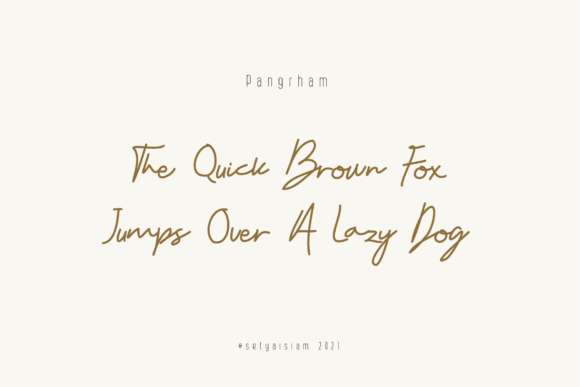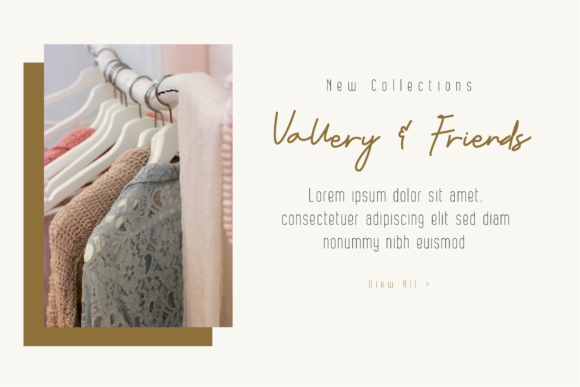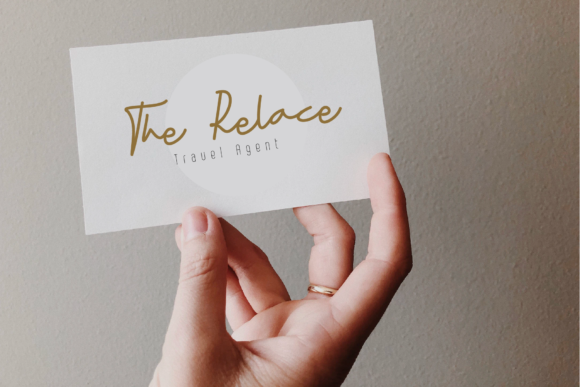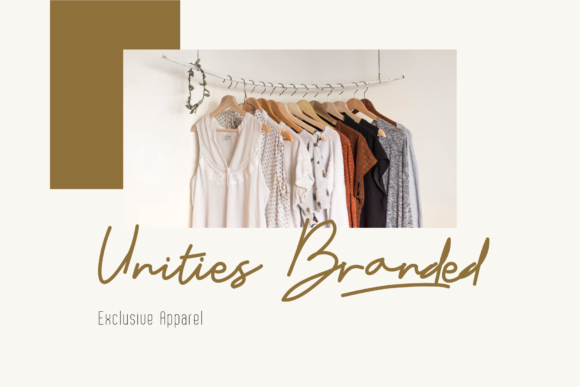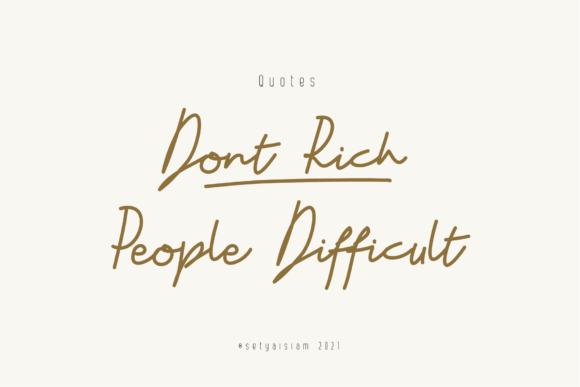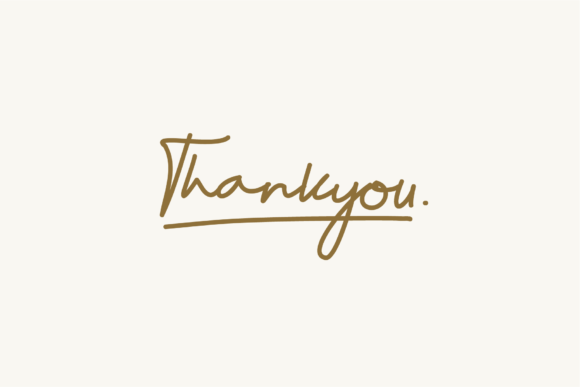
Abamail Font
About Abamail Font
Abamail is a beautiful handwritten font that adds a touch of elegance and charm to your designs. With its stylish and flowing letterforms, this font brings a sense of sophistication and creativity to your creative projects. Whether you’re working on branding materials, magazine layouts, book covers, logos, or any other design project, Abamail is a versatile choice that elevates your visual communication.
The unique and distinctive style of Abamail sets it apart and makes it a standout font for various design needs. Its handcrafted appearance adds a personal and artistic touch to your designs, creating a sense of authenticity and originality. Whether you’re aiming for a modern and contemporary look or a more vintage and nostalgic feel, Abamail adapts effortlessly to suit your creative vision.
Abamail is well-suited for both digital and print designs. Its legibility and clean lines ensure readability, even at smaller sizes, making it suitable for various applications. Whether you’re using it on websites, social media graphics, posters, or printed materials like business cards and stationery, Abamail maintains its visual appeal and impact.
Furthermore, Abamail’s versatility extends to different design genres. It works well in both casual and formal contexts, allowing you to create designs that align with your intended tone and message. Whether you’re designing for a youthful brand, a fashion magazine, or an elegant logo, Abamail adapts seamlessly to suit your specific design needs.
In summary, Abamail is a beautiful handwritten font that adds elegance and charm to your designs. With its versatile style and legible letterforms, it is suitable for various design applications, including branding, magazines, books, logos, and more. Embrace Abamail to enhance your design projects and create visually stunning and captivating experiences for your audience.